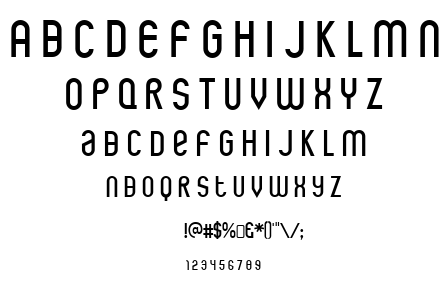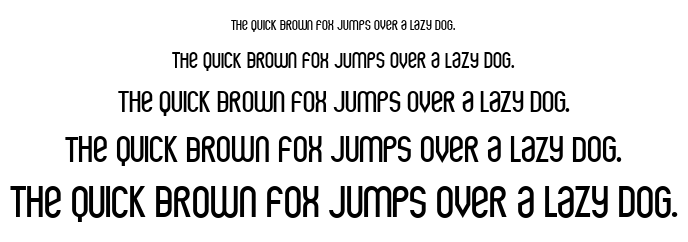
Rothwell is a sober, astro-militaristic unicase headline font available in regular and “army” styles. Don’t forget to read the files inside the zip for details. Updated in 2012.